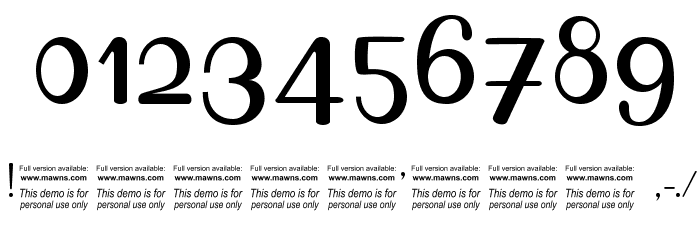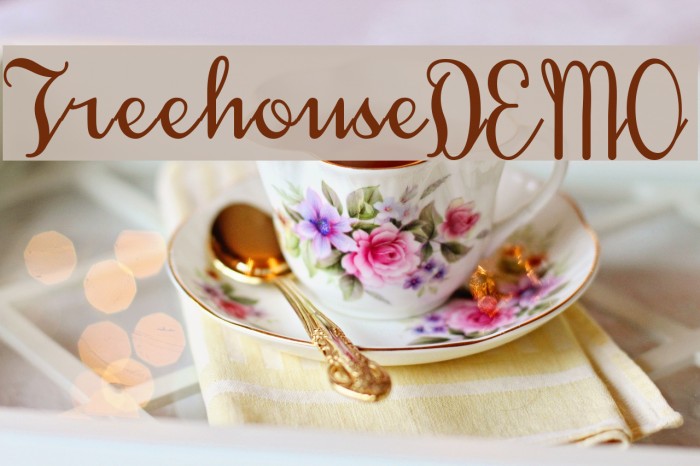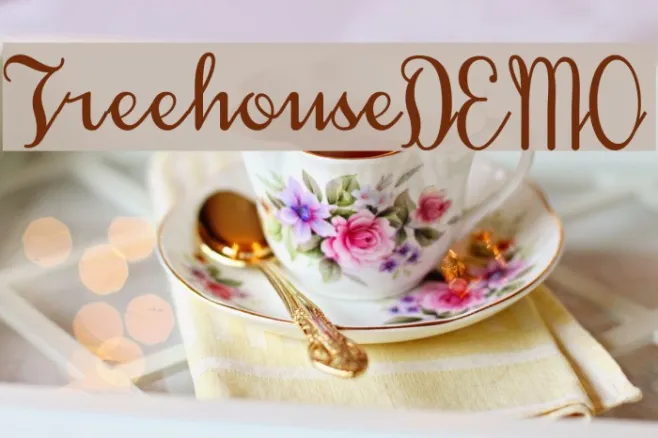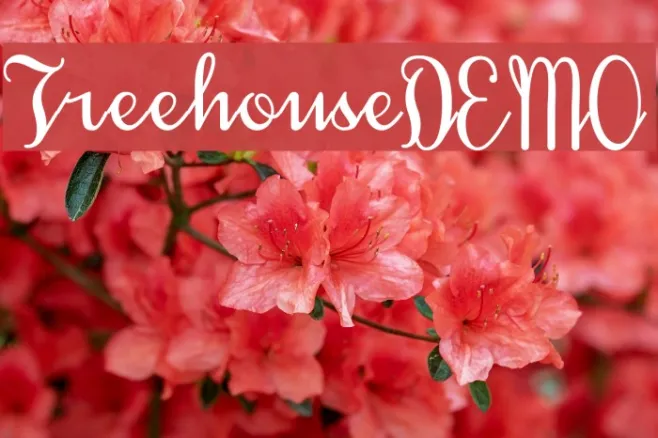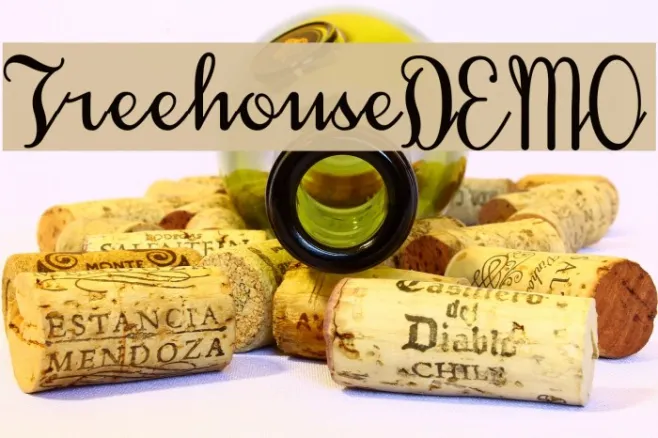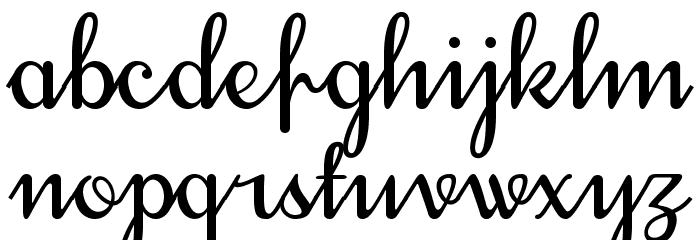
TreehouseDEMO Font
TreehouseDEMO Description
This font features a unique blend of elegance and playfulness, characterized by its flowing, cursive style. The uppercase letters exhibit a decorative flair with intricate loops and swirls, while the lowercase letters maintain a more straightforward yet stylish appearance. The numerals are bold and clear, ensuring readability. The overall design is cohesive, with a consistent stroke width that adds to its charm. This font is ideal for projects that require a touch of sophistication and creativity, such as invitations, greeting cards, and branding materials.
| Proposed Projects | Ideal for invitations, greeting cards, and branding materials. |